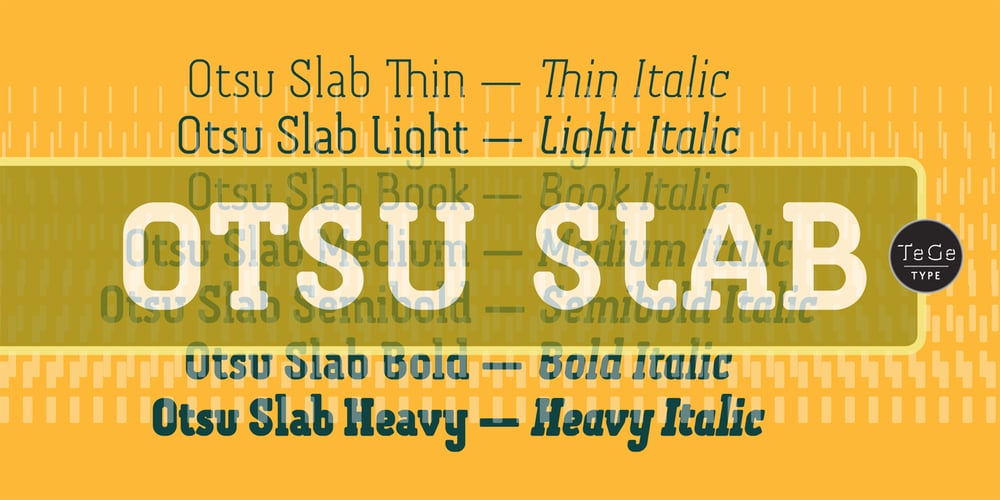
Otsu Slab Font Family was designed by Thierry Gouttenègre and published by TeGeType. Otsu Slab contains 14 styles and family package options. The OTSU SLAB family is a new slab-serifs typefaces family based on a geometric design. It can be use for text as for titling applications.